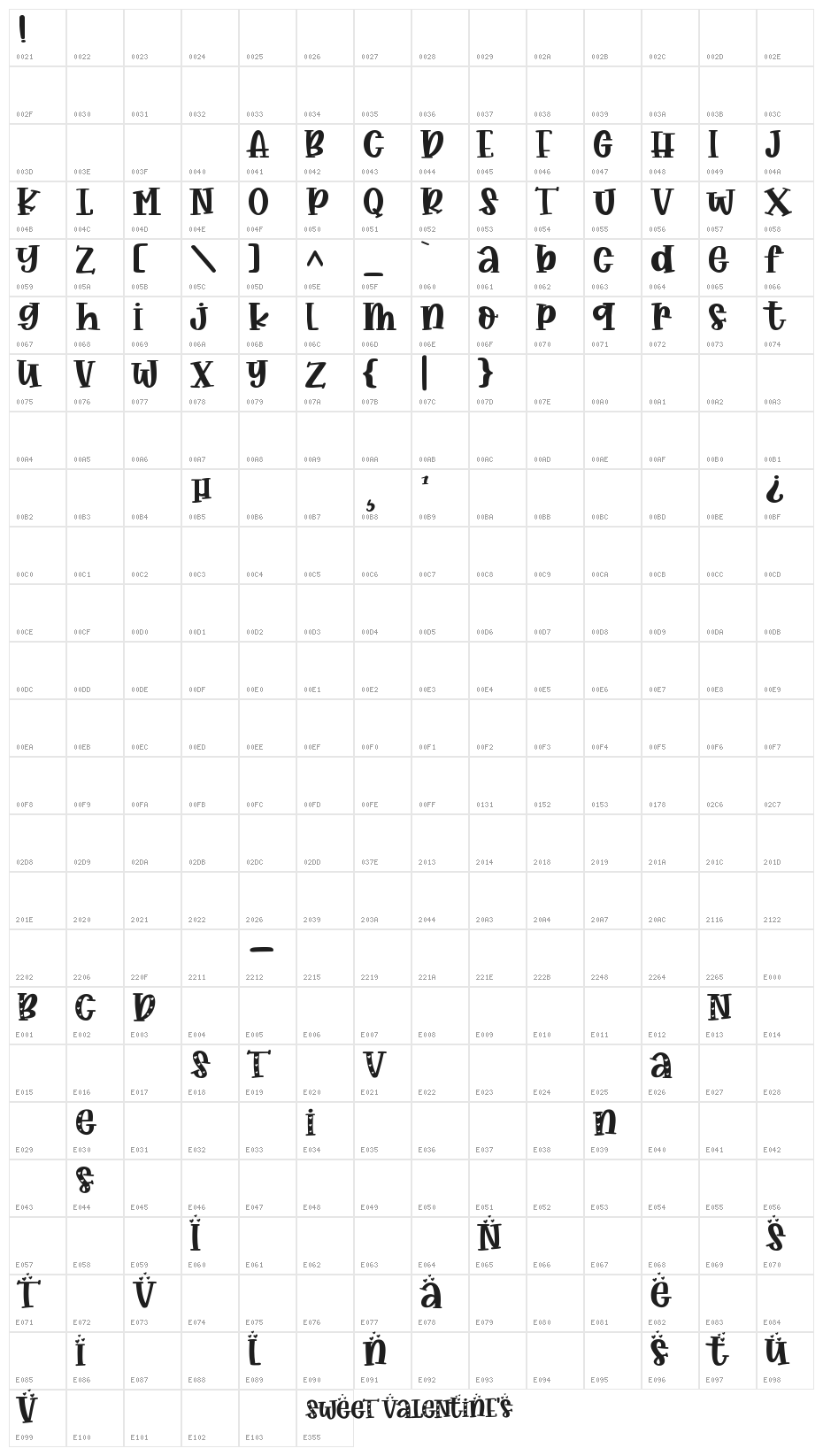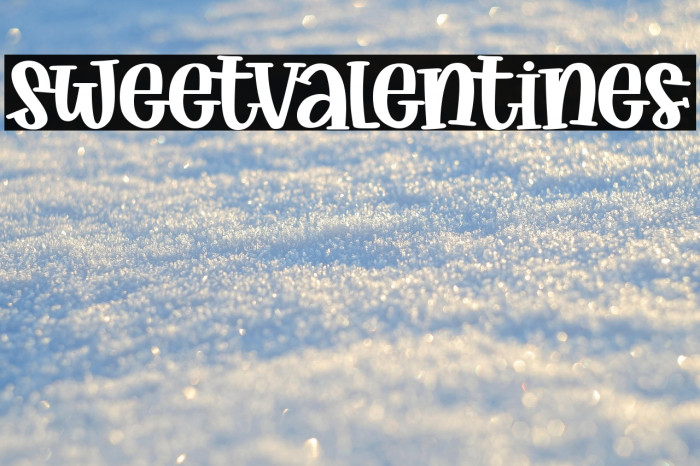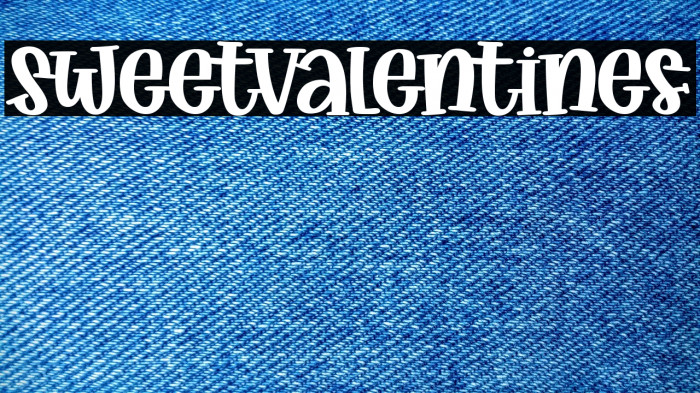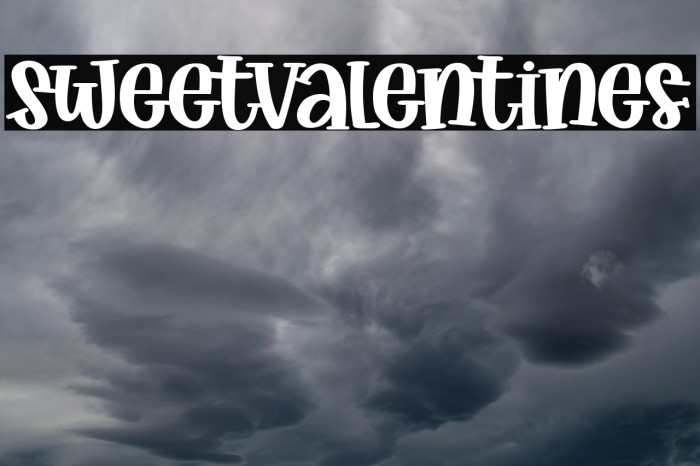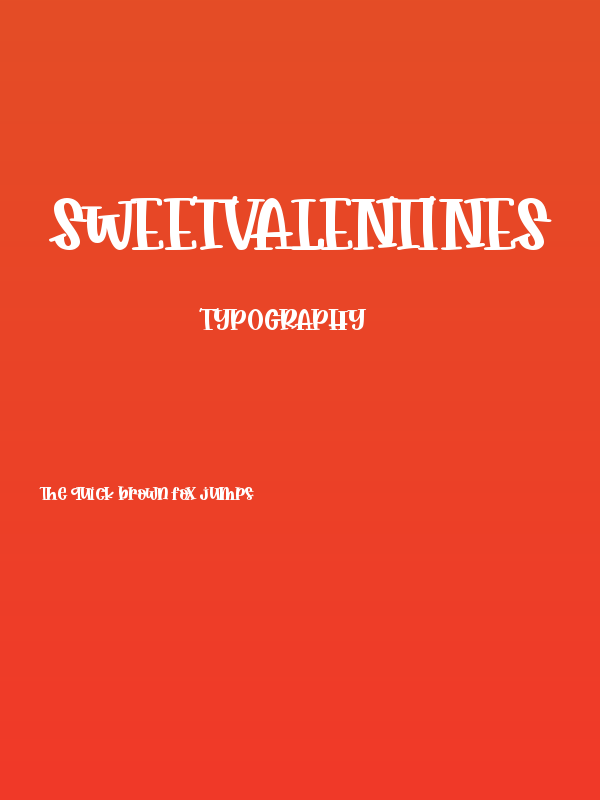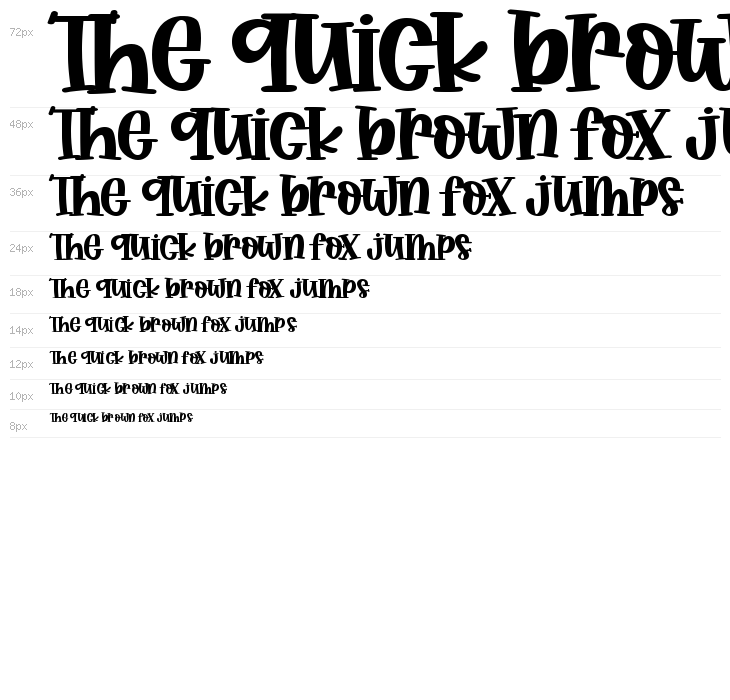
SweetValentines Font
SweetValentines Description
This playful and whimsical font features bold, rounded characters with a hand-drawn aesthetic. The uppercase letters are characterized by their exaggerated curves and unique flourishes, giving them a lively and energetic appearance. The lowercase letters maintain a consistent style, with a slightly more subdued flair, yet still retain the font's overall playful nature. The numbers and special characters are designed to match the alphabet's style, ensuring a cohesive look across all text. This font's distinct personality makes it ideal for projects that require a fun and engaging visual element.
| Overall Style | Playful, Whimsical |
| Use Case | Headlines, Logos, Invitations |
| Proposed Projects | Perfect for greeting cards, children's books, playful branding, and event invitations. |